Core Sans M Font
Core Sans M
Core Sans M is a 56 fonts family created by Hyun-Seung Lee, Dae-Hoon Hahm and Min-Joo Ham and published through S-Core. As part of the Core Sans Series, such as Core Sans N and Core Sans N SC, Core Sans M comes with rounded finish, soft and friendly appearance that make it very good for use in books, print, web apps, screen display etc.
Copperlove Font
Copperlove
Copperlove is an elegant caligraphic handwritten typeface published by Resistenza that is perfect for your romantic project, wedding invitation, signature, logo etc.
Gemmadonati Font
Gemmadonati
Gemmadonati is a calligraphic handwritten typeface created by Carine de Wandeleer and published by Eurotypo that you’ll find two styles (Regular & Italic), 790 glyphs, 63 ornaments, language support perfect for magazine, poster, wedding invitation etc.Enjoy!
Newt Serif Font
Newt Serif
Newt Serif is a calligraphic typeface created by Nathanael Bonnell and published by Looseleaf Fonts that is recommanded for text.
Mikado Font
Mikado
Mikado is a sans-serif typeface created by Hannes von Döhren and published by HVD Fonts. It is a type family for kids that merge for smaller sizes and longer text. You’ll find alternate letters, ligatores, arrows, fractions etc. Have fun!
Only You Pro Font
Only You Pro
Only You Pro is a hand made script typeface created by Gabriel de Souza and published by LeType. With a romantic flavour, Only You Pro fully featured glyphs (alternates, ligatures and multilingual) are designed making every project you use it on look beautiful and bright!
Naïve Inline Font
Naïve Inline
Naïve Inline is an elegant handwritten typeface created by Fanny Coulez and published by La Goupil. You’ll find three weights perfect for headline, magazine, wedding project etc.
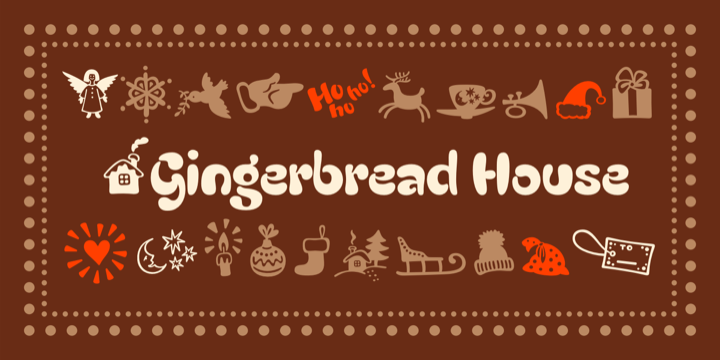
Olivier Font
Olivier
Olivier is a typeface created by Ursula Hitz and published by Letters&Numbers. This font is recommended for logos, short paragraphs, heading and it relies on painted black ink letters. Enjoy!
Amelia Font
Amelia
Amelia is a typeface created by Martin Sommaruga and published by TipoType. It is an elegant geometric font that you can work on text or display. This family font has 16 fonts and also you have a UP version.
Vitali Font
Vitali
Vitali is a typeface created by Mateusz Machalski and published by Borutta. It is a geometric sans-serif font and the family font contains 8 perfect fonts that has 2 weights and a clean look.
Brandon Text Font
Brandon Text
Brandon Text is a typeface published by HVD Fonts in 2013. It is a modern geometric sans-serif.
Aneba Font
Aneba
Aneba is a typeface created by Mateusz Machalski and published by Borutta. You’ll find 10 geometric fonts perfect for long text and headlines. Enjoy!
Margot Font
Margot
Margot is a typeface created by Dave Rowland and published by Schizotype. It is a warm font that you can use on logo.
Halis Rounded Font
Halis Rounded
Halis Rounded is a typeface created and published by Ahmet Altun in 2013. This family font contain 16 fonts perfect fou your future projects. Buy it now!
Flexo Font
Flexo
Flexo is a typeface created by Ben Blom and published by Durotype. This font has sixteen styles and you can use this geometric font in your future projects.
Gingerbread Font
Gingerbread
Gingerbread is a typeface created by Vasily Biryukov & Alexandra Korolkova and published by Alexandra Korolkova. It is a font perfect for greeting cards, made specifically for Christmas and winter holiday. This font is inspired by bakery products.
Gingerbread House Font
Gingerbread House
Gingerbread House is a tyepface created by Vasily Biryukov & Alexandra Korolkova and published by Alexandra Korolkova. It is a font especialy for Christmas, inspired by bakery products, Gingerbread.
Narziss Pro Cyrillic Font
Narziss Pro Cyrillic
Narziss Pro Cyrillic is a typeface created by Hubert Jocham and published by Hubert Jocham Type. If you are looking for a font very elegant in big headlinesizes, buy Narziss Pro Cyrillic! It is a combination between spencerian calligraphies and neoclassic contrast perfectly for big headlines in magazines, brochures and invitation.